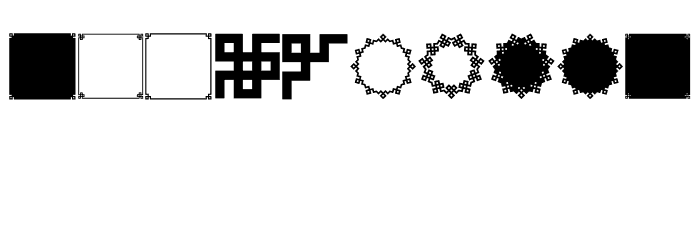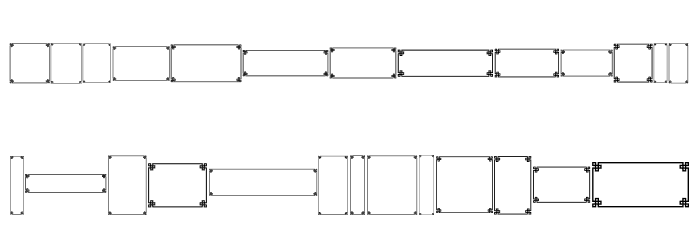
Borders 2 Style Pro Font
Borders 2 Style Pro Description
A decorative border-style font composed of geometric shapes, primarily rectangles and squares, with some intricate patterns and filled blocks. The glyphs are modular and designed to connect seamlessly, making them suitable for creating frames or borders.
| Overall Style | Decorative, Geometric |
| Use Case | Borders, Frames, Decorative elements |
| Proposed Projects | Page borders, certificate frames, decorative dividers, digital scrapbooking, graphic design accents. |